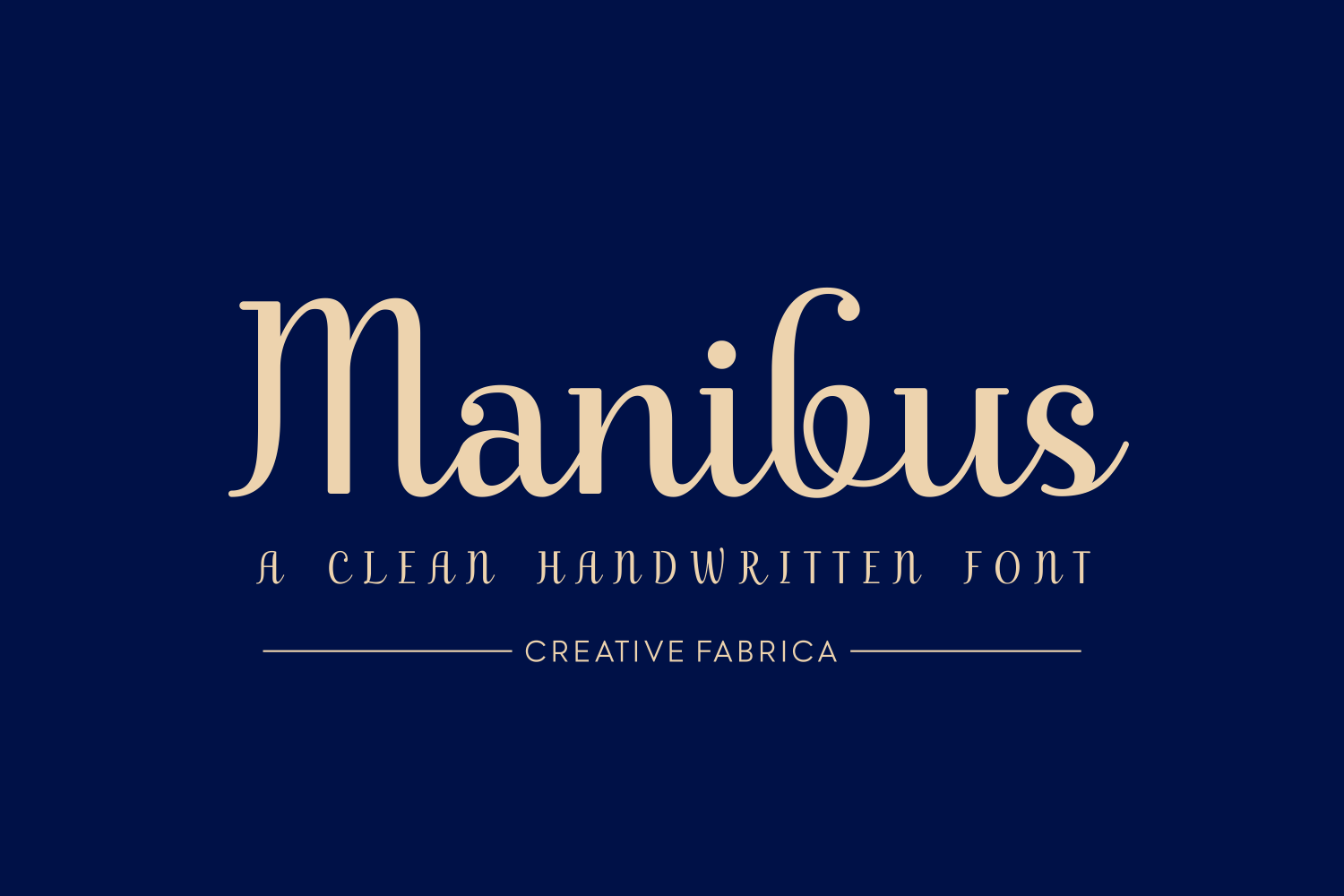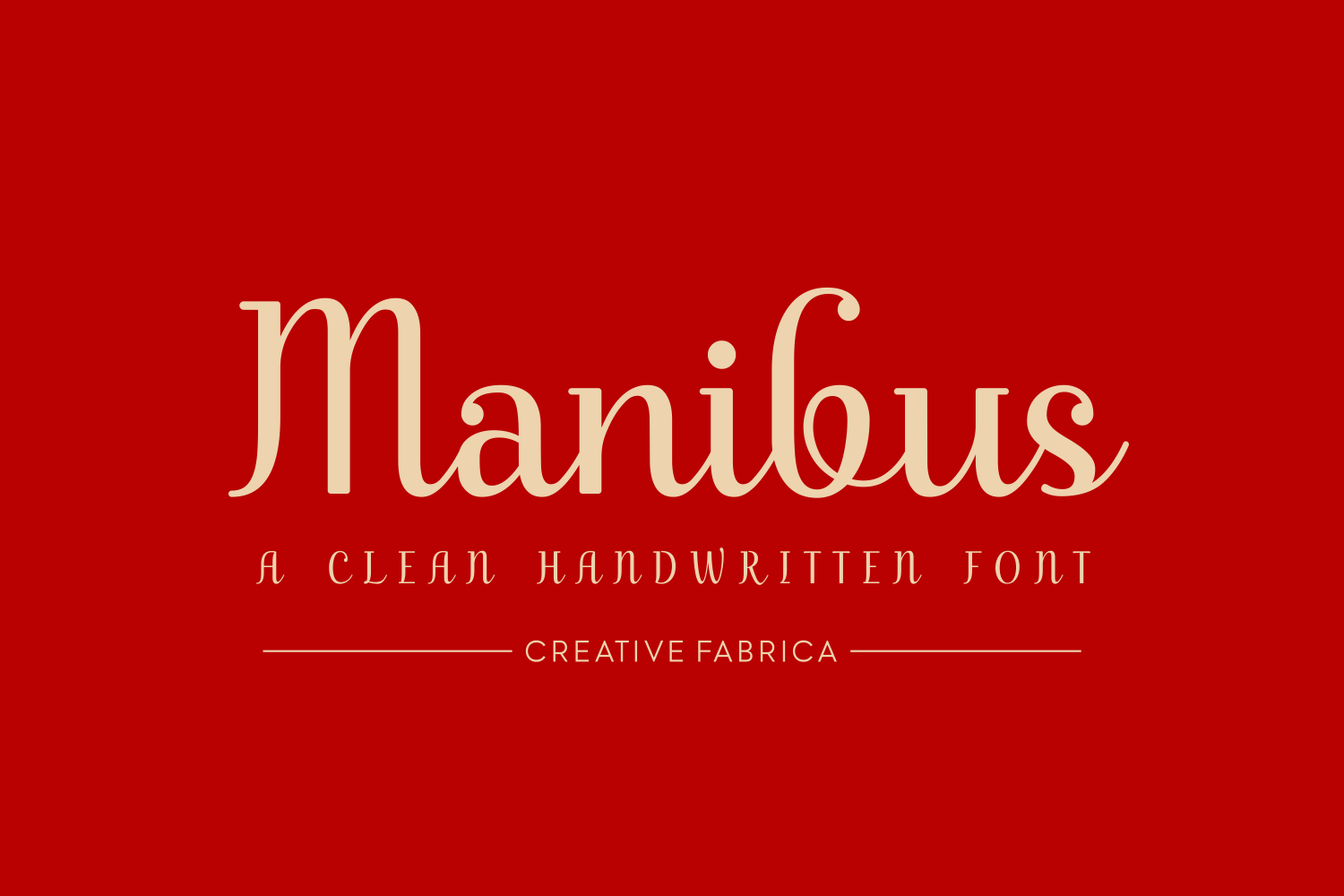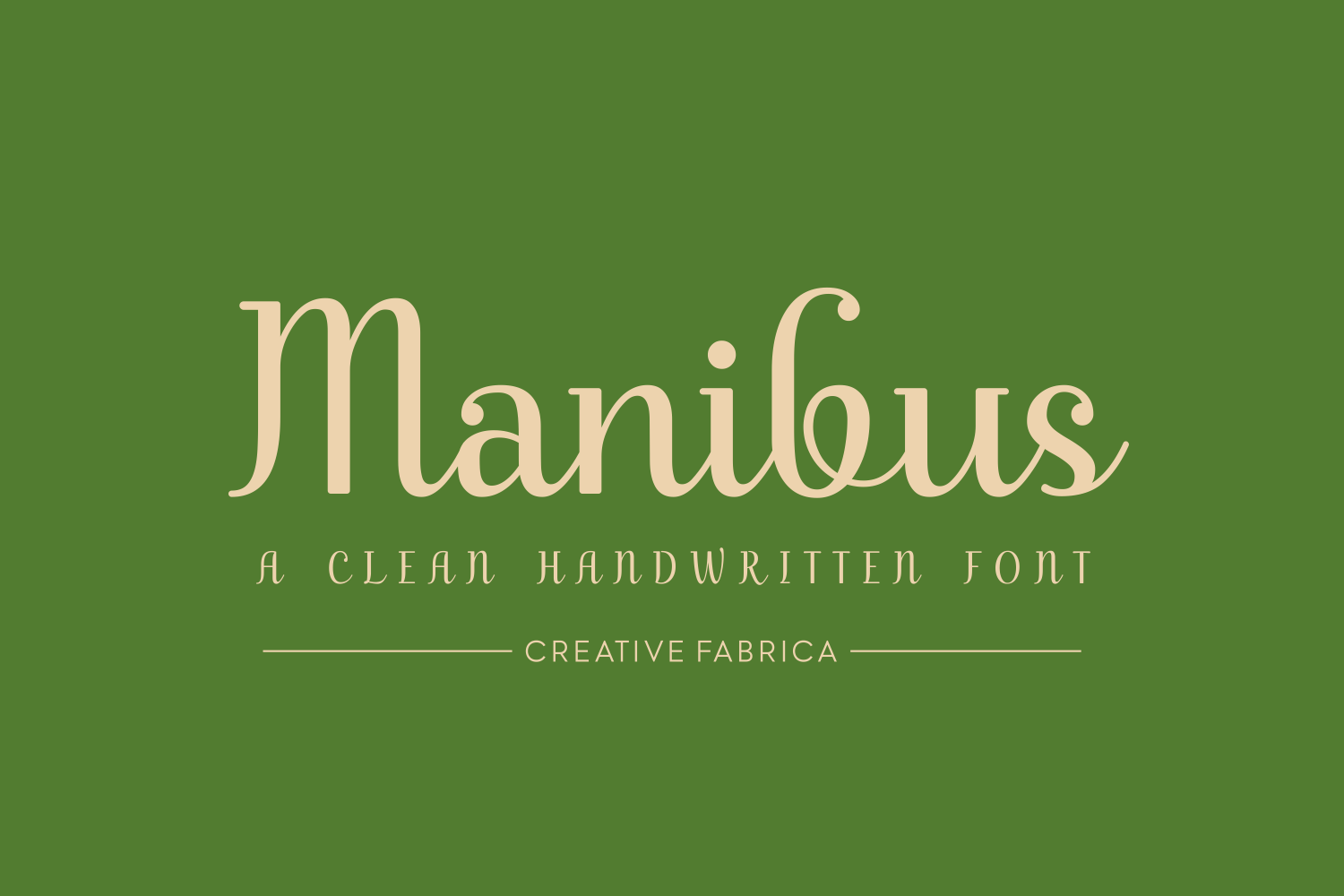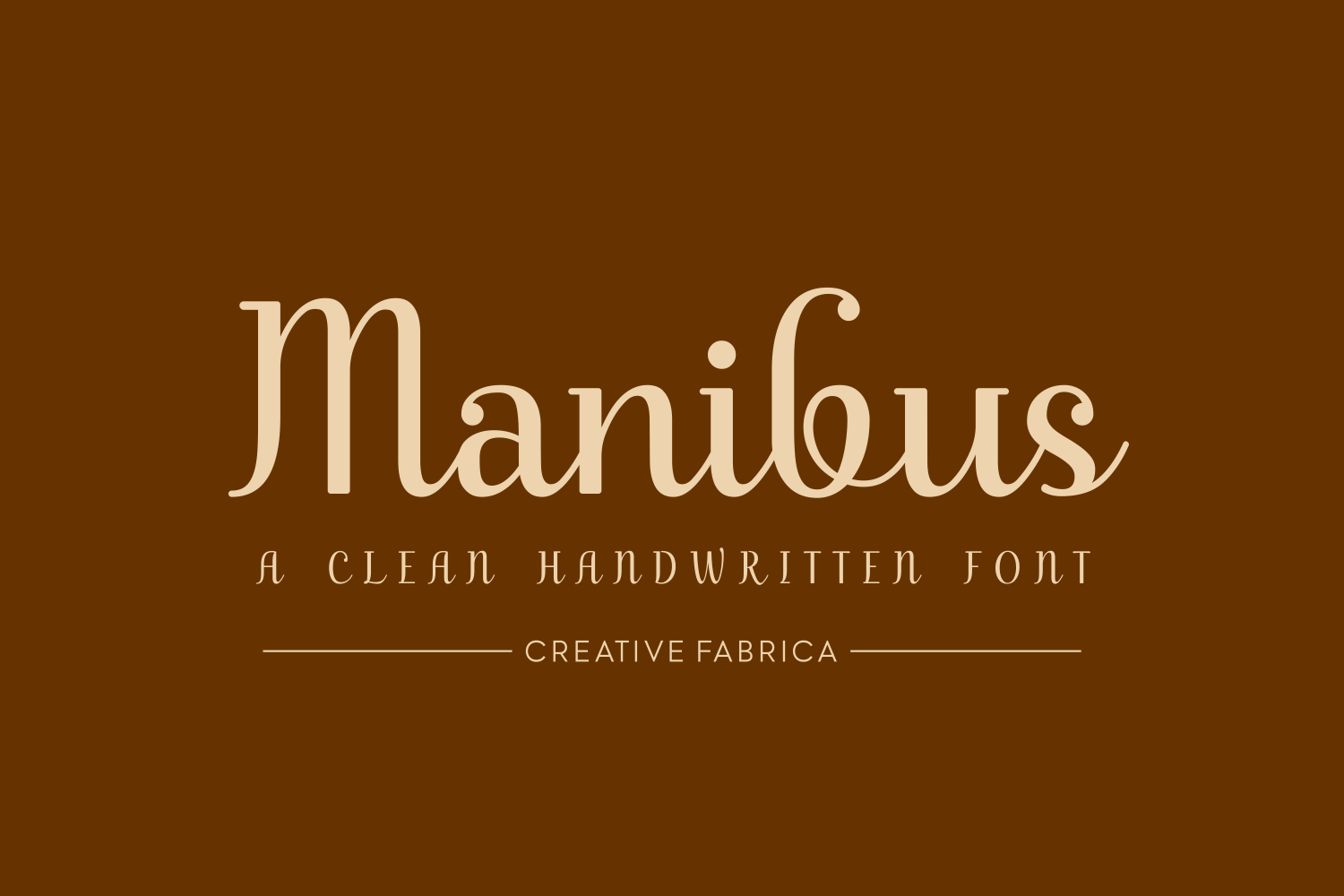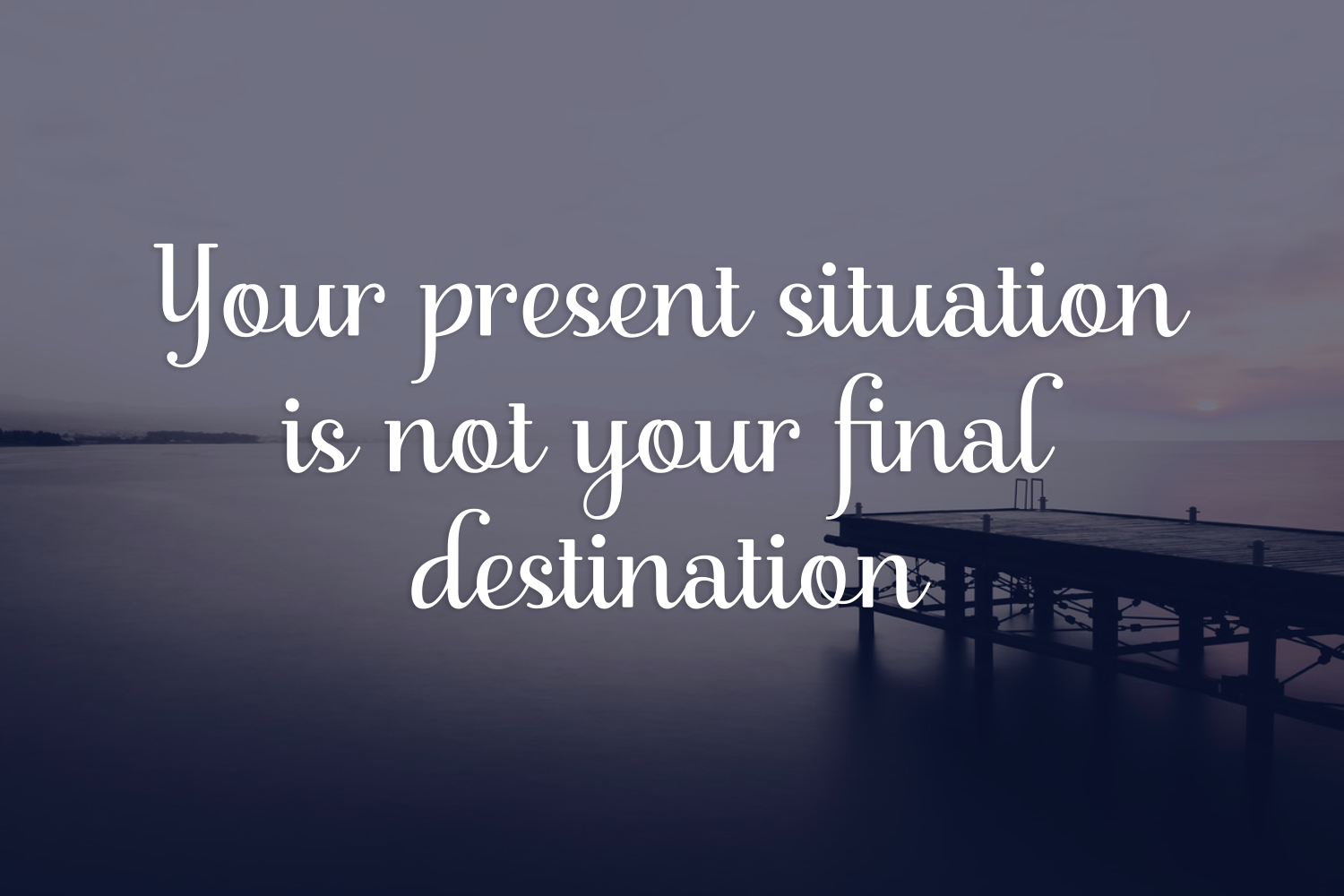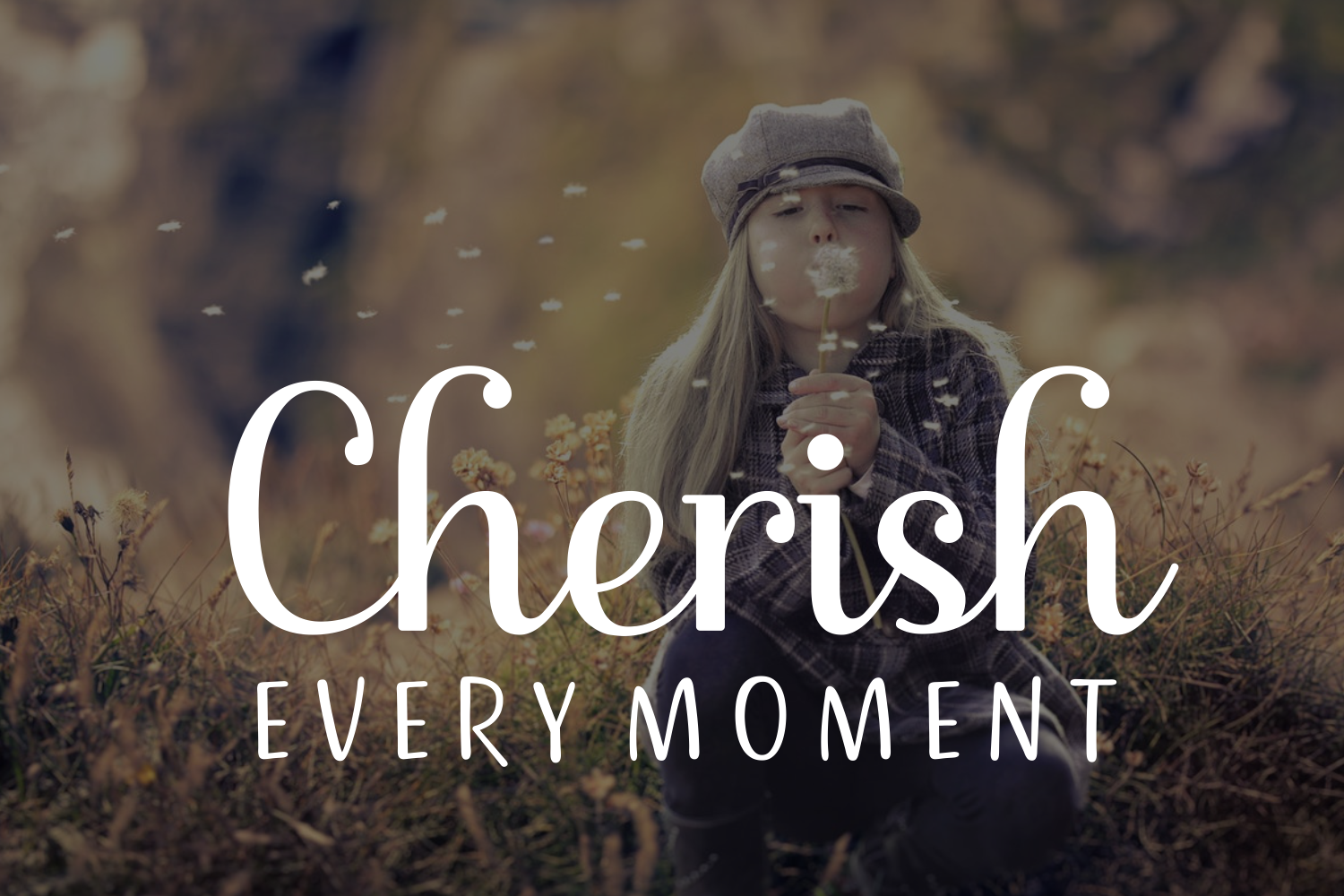
Script Fonts Manibus Font 0 152 FacebookTwitterPinterestWhatsApp Manibus Font Poster 2 Manibus Font Poster 3 Manibus Font Poster 4 Manibus Font Poster 5 Manibus Font Poster 6 About Manibus Font Manibus is an elegant, upright handwritten font. It’s clean handwriting is very suitable for formal texts. The Manibus font is connected and has a natural flow. DOWNLOAD NOW